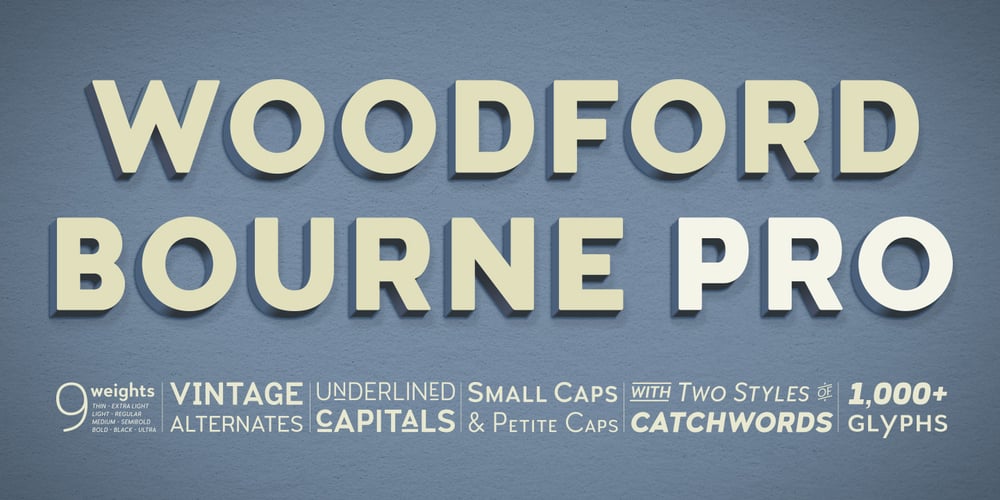
Woodford Bourne PRO Font Family was designed by Paulo Goode and published by Monotype. Woodford Bourne PRO contains 17 styles and family package options. Woodford Bourne PRO is the evolution of my original Woodford Bourne typeface that was inspired by the iconic stone cast letters on the façades of the 19th century Woodford, Bourne & Co. buildings in Cork City, Ireland. Woodford Bourne PRO has matured with numerous improvements to make it an even more versatile font family. The fonts have been completely redrawn and spaced, there are now an additional 500 glyphs for you to use across 9 stylistic sets. The additions include underlined caps, small caps, petite caps, catchwords, discretionary ligatures and more. Please view the specification sheet before you purchase to see all the glyphs and features. Key features: • Woodford Bourne PRO is a vintage geometric sans, optically adjusted for improved aesthetics and legibility 2 FONTS IN 1 – Use the default contemporary character set, or switch to vintage style with stylistic sets 9 Weights in Roman and Italic Thin | ExtraLight | Regular | Medium | SemiBold | Bold | Black | Ultra Underlined Caps, Small Caps, Petite Caps, Catchwords, Discretionary Ligatures Full European character set 1000+ glyphs per font UPDATED JULY 2021 (v.3)Woodford Bourne PRO v.3 update includes numerous improvements including rebalanced /S/s/ glyphs to make them less ‘top heavy’. Italics have been redrawn to smoothe out irregularities. Improvements have been made to diacritics and glyph coverage now supports all Latin European languages.